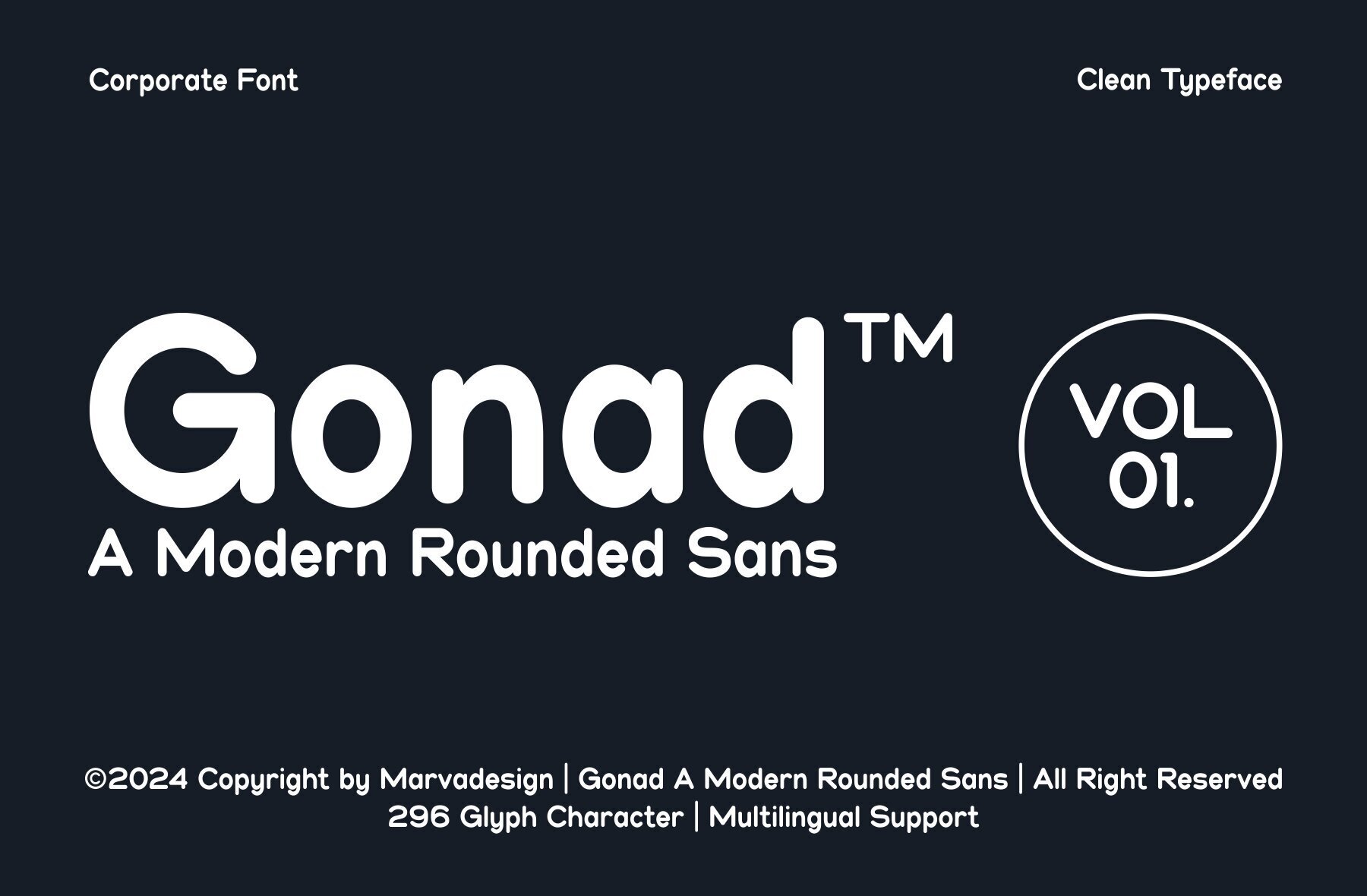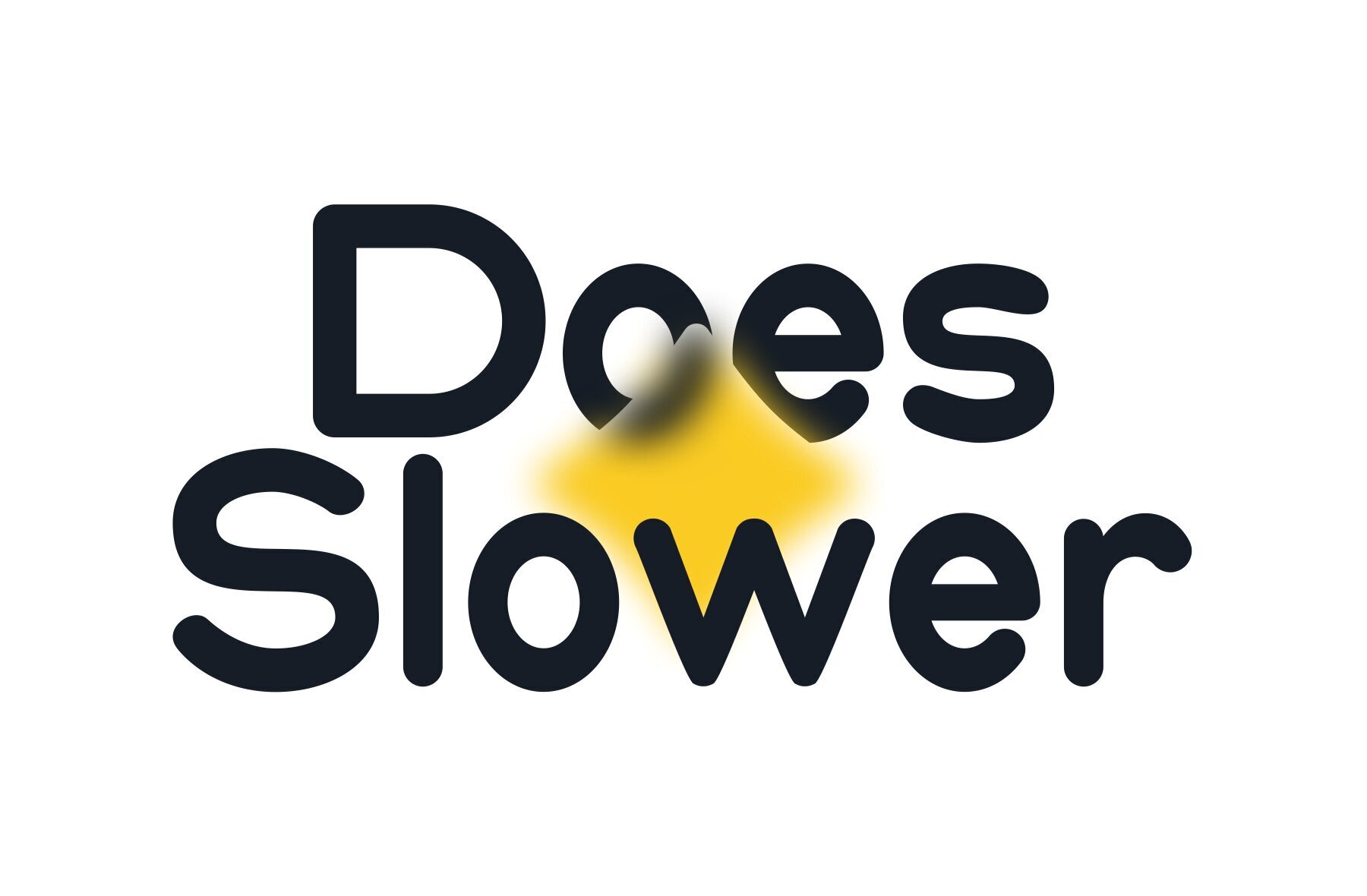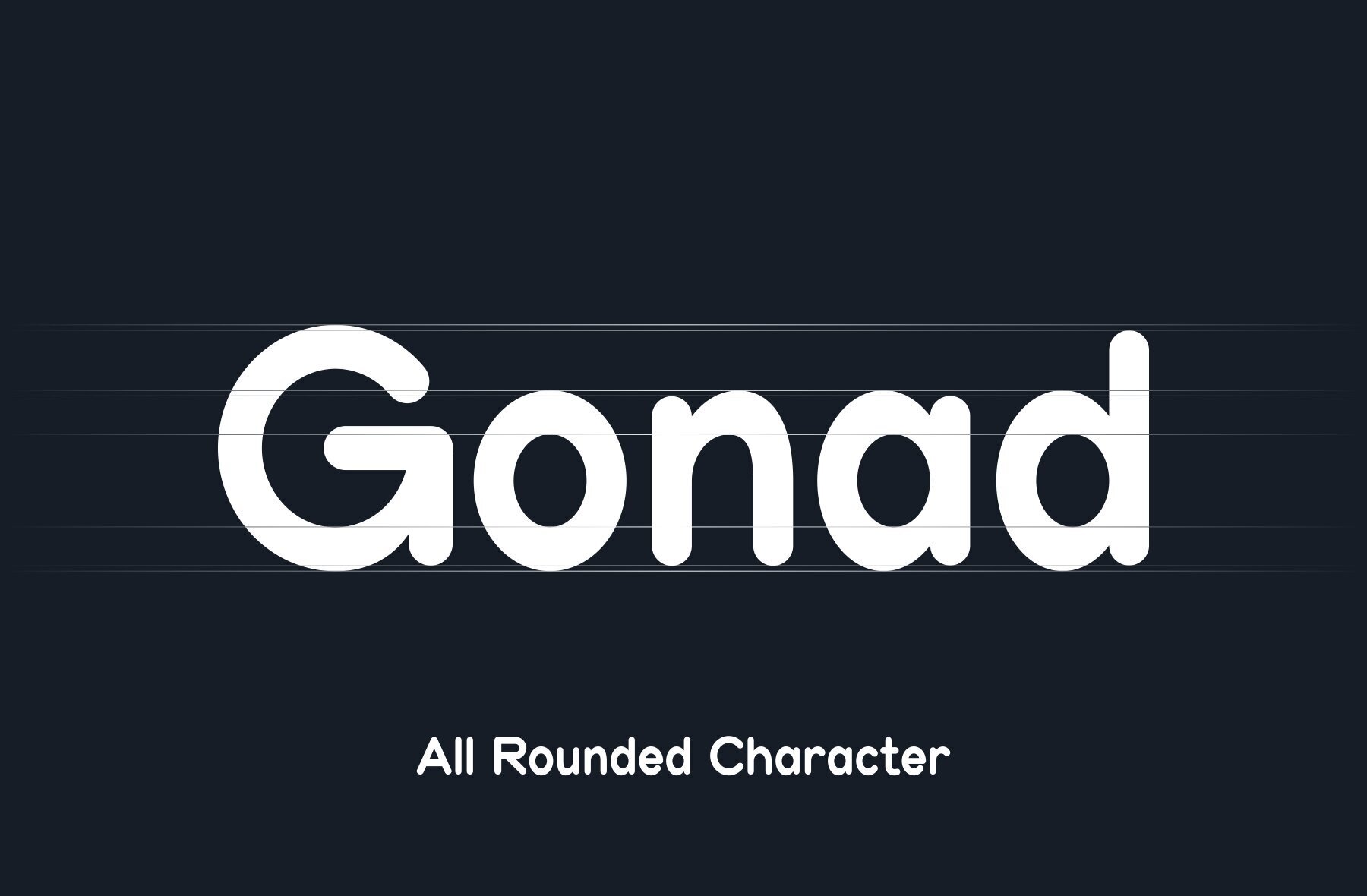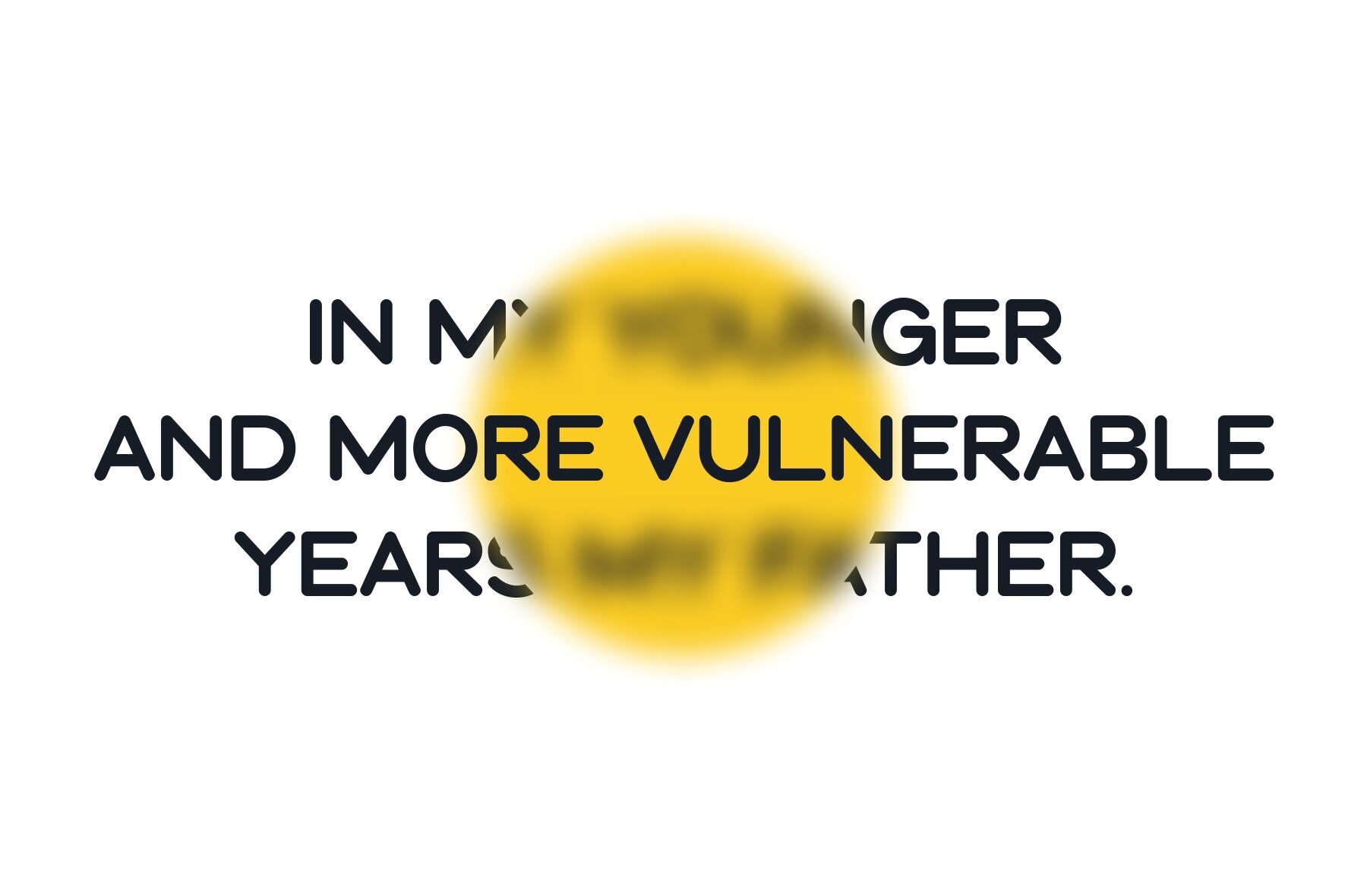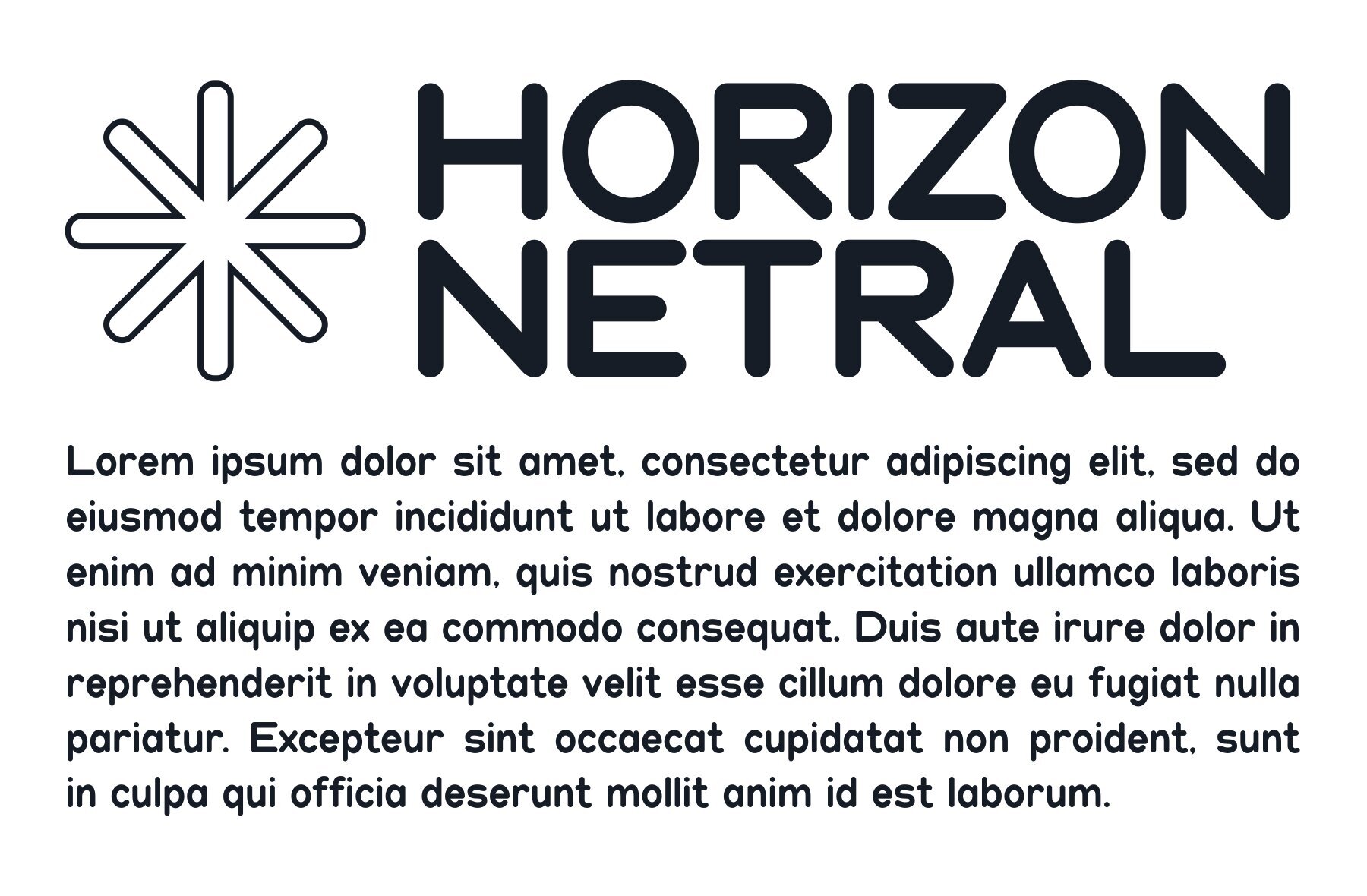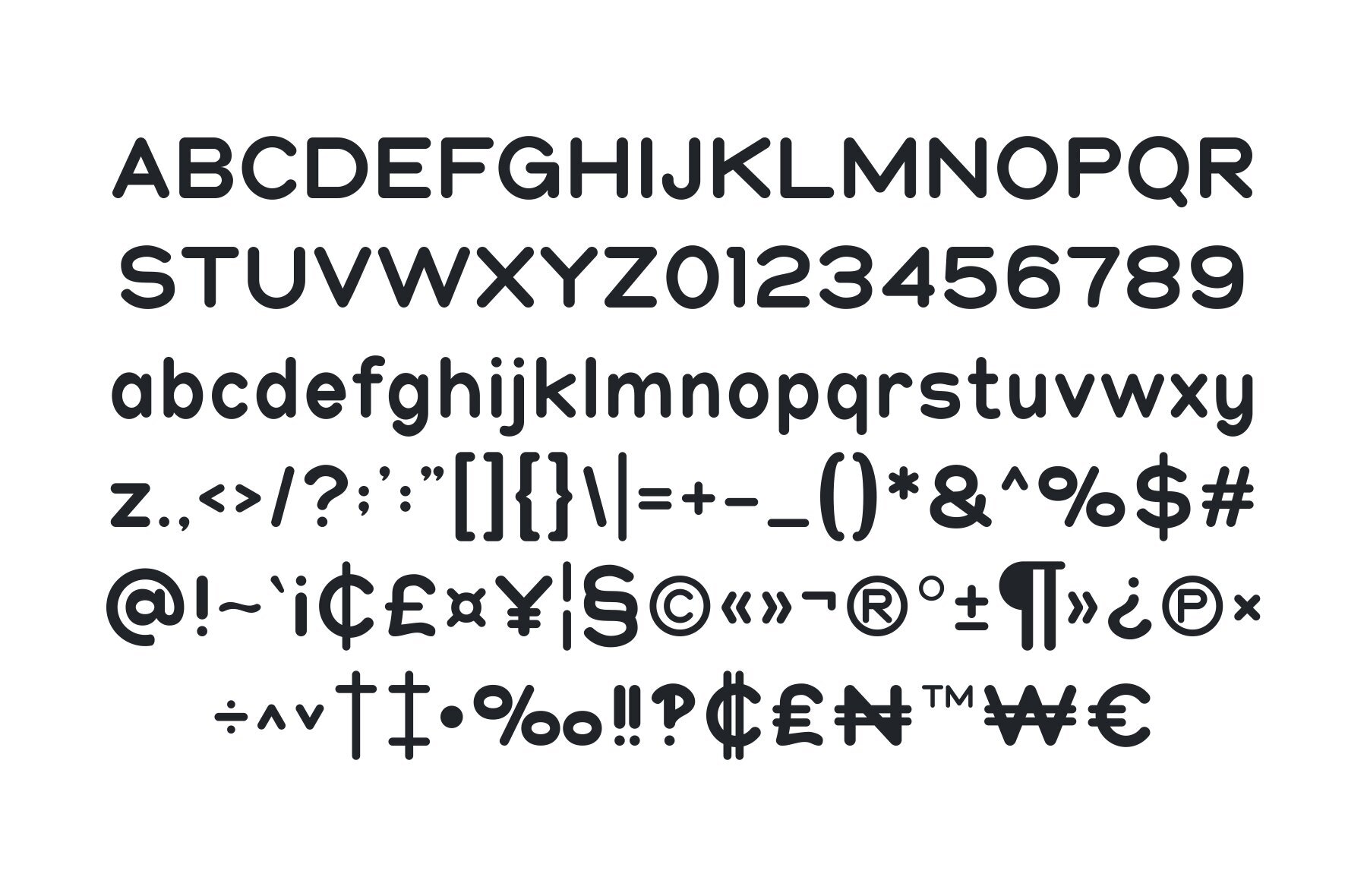
Gonad Font
Gonad: A Versatile Font for Modern Branding
The Gonad font brings a round and soft style that exudes a friendly yet professional impression. Its clean lines and balanced proportions make it suitable for diverse purposes, ranging from websites and product design to brand identity. With excellent readability, it ensures your message is conveyed clearly and is easily understood by your audience. Gonad is an ideal choice for creating a modern and elegant look in your branding projects, offering a harmonious balance between professionalism and contemporary aesthetics.
Features
- Uppercase and Lowercase – Offers flexibility in design.
- Multilingual Support – Accommodates various languages for wider reach.